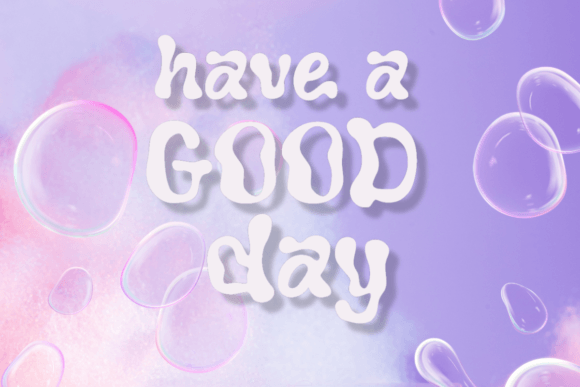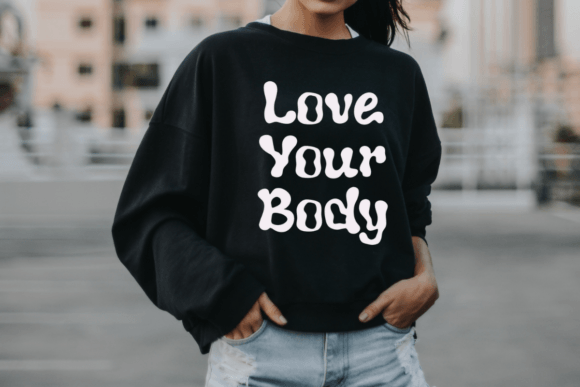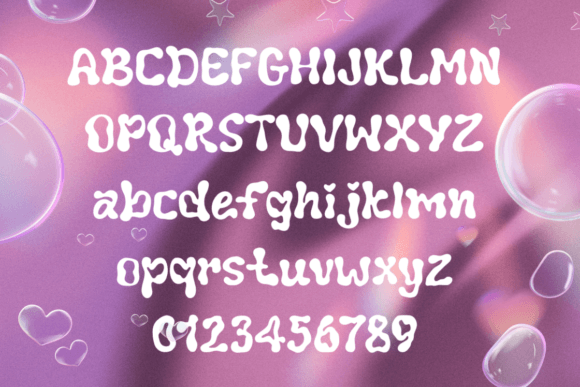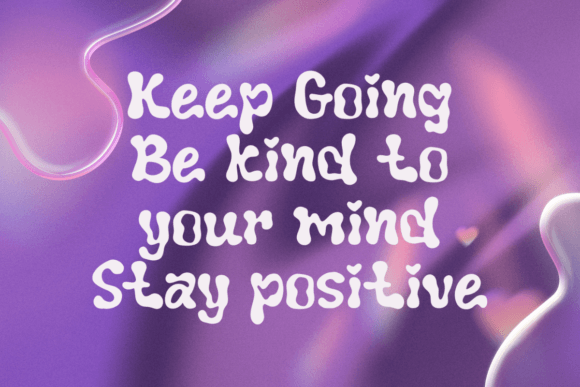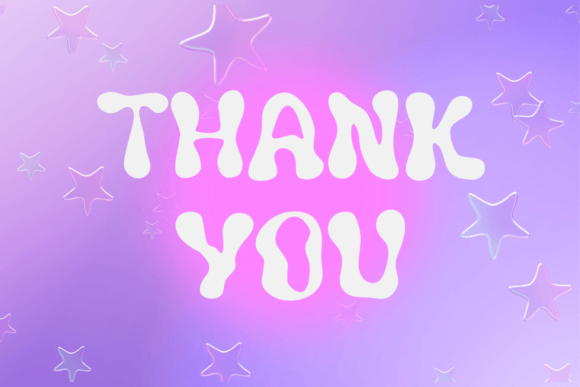
Introduction to Pink Liquid Font
Pink Liquid is a cool and cute display font.
Key Features of Pink Liquid Font
Why Choose Pink Liquid Font?
Pink Liquid Font offers exceptional quality and versatility, making it a valuable addition to your design toolkit. Whether you’re creating for personal projects or commercial use, Pink Liquid Font delivers professional results.